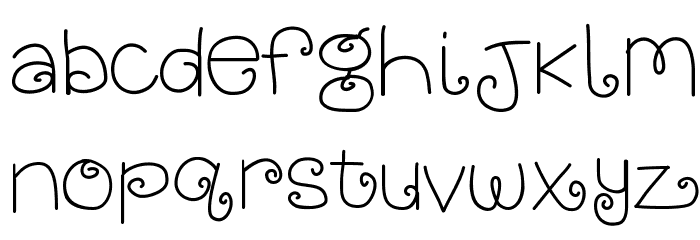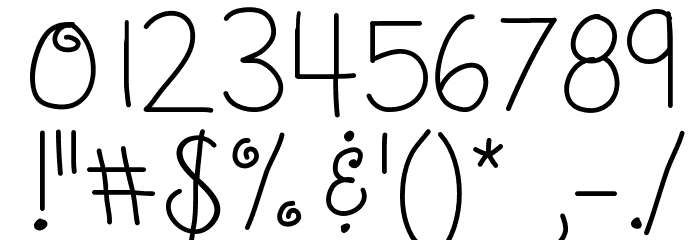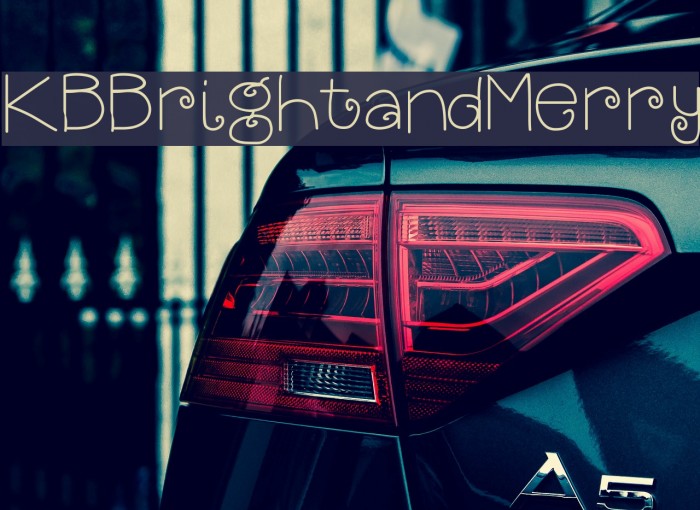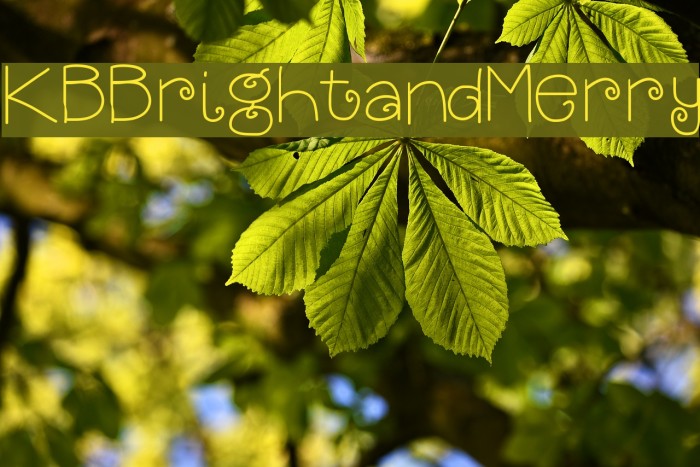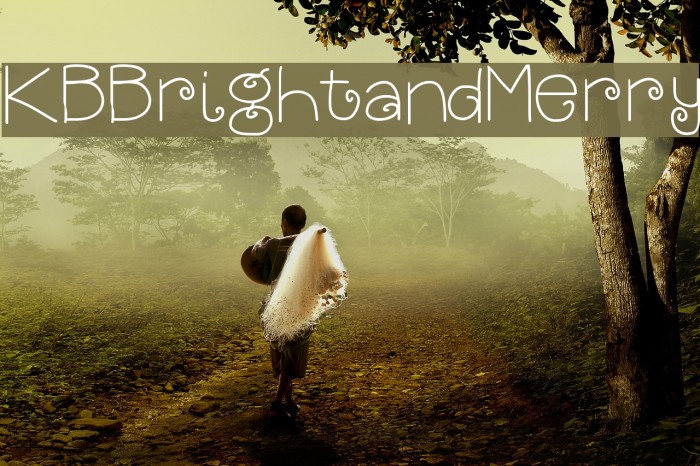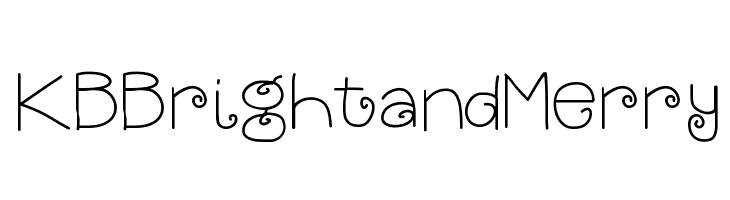
KBBrightandMerry Font
This playful and whimsical font features a handwritten style with a casual and friendly appearance. The uppercase letters are tall and narrow, with slightly uneven strokes that add a touch of charm. The lowercase letters are more rounded and feature unique loops and curls, giving them a distinctive personality. Numbers and special characters maintain the same playful aesthetic, with a consistent stroke width throughout. The font's overall look is light-hearted and approachable, making it ideal for projects that require a fun and informal touch.
A playful, handwritten font with whimsical loops and curls.
- Proposed Projects: Ideal for children's books, greeting cards, playful branding, and casual invitations.
- Use Case: Logos, Headlines, Invitations